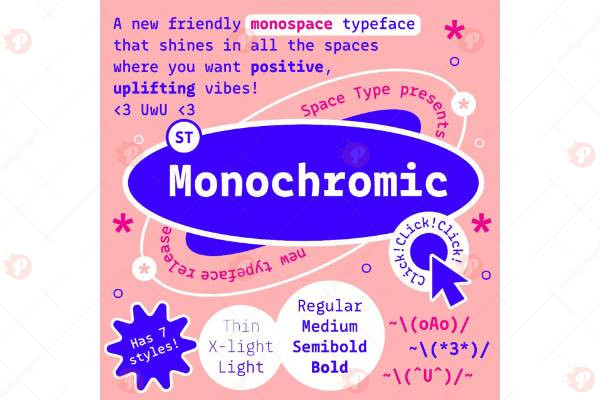
The Monochromic Font Free is a modern and minimal sans-serif typeface crafted with clean lines and geometric precision. Its elegant and timeless design makes it perfect for branding, editorial layouts, magazines, websites, social media graphics, packaging, and digital products.
With its simple yet sophisticated style, Monochromic ensures high readability while keeping your design sleek and professional. Whether you’re working on a logo, headline, business identity, or creative project, this font adds a refined and contemporary touch.
Typeface: Sans Serif / Minimal / Modern
Style: Clean / Elegant / Geometric / Professional
Perfect for: Branding, Editorial Design, Magazines, Websites, Logos, Packaging, Social Media Graphics, Digital Products
Bring a modern and minimalist vibe to your designs with the Monochromic Font Free.